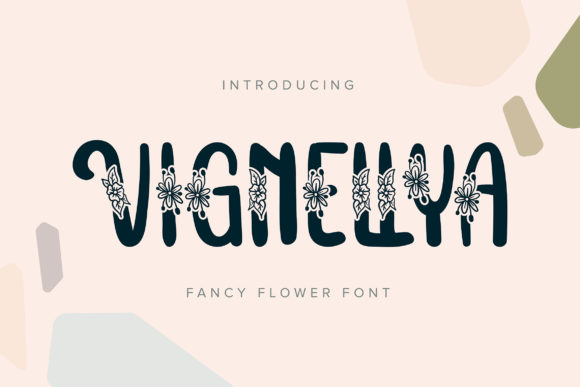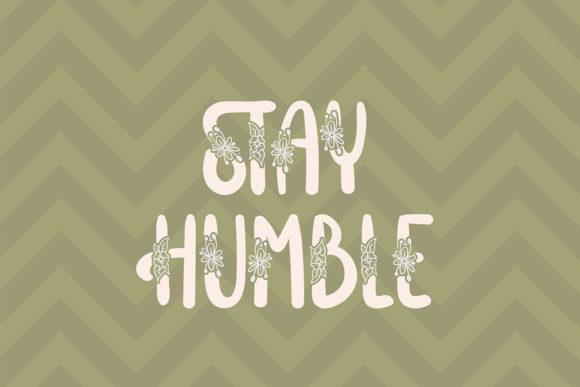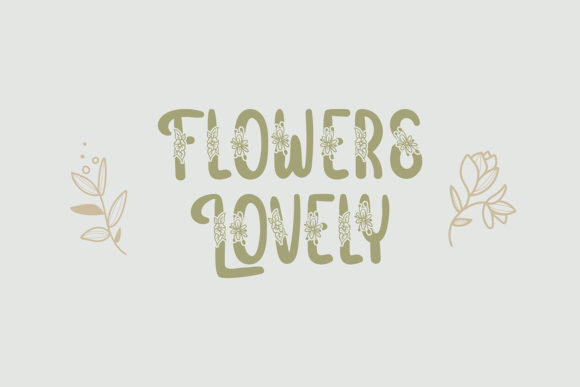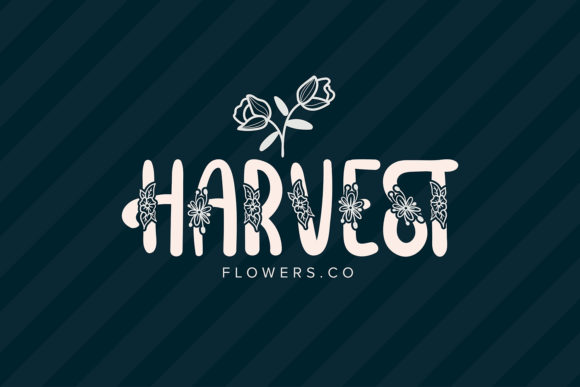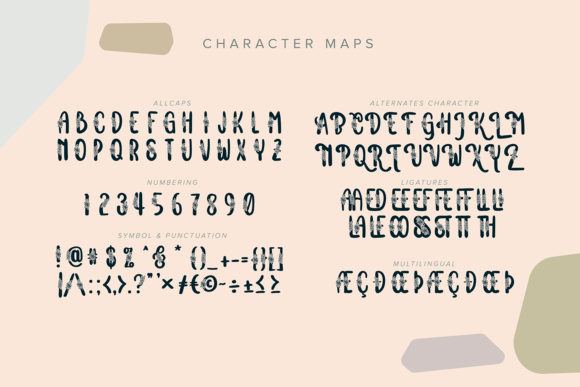
About Vignellya Font
Vignellya is a beautiful handwritten font. It features cute flower-themed characters that will add a special and unique touch to your designs!
This font is PUA encoded which means you can access all of the great glyphs and swashes with ease! It also features a wealth of special features including alternate glyphs and ligatures.